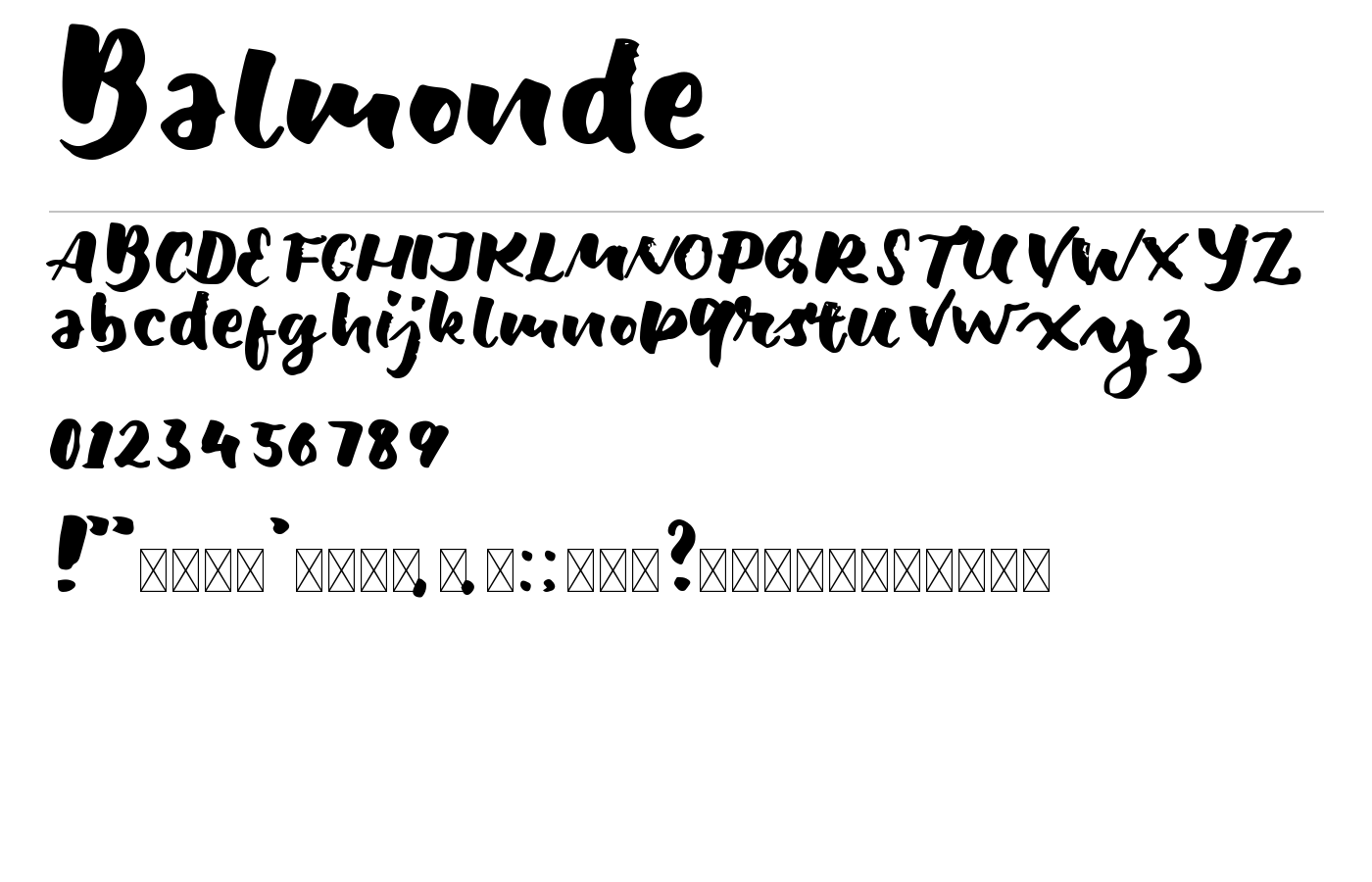
Balmonde is a bold, brush-style script font with a casual, hand-painted feel, featuring thick, dynamic strokes and lively letterforms that create a strong, artistic presence. Its irregular shapes and high contrast between thick and thin elements give it an energetic, expressive vibe, making it ideal for creative branding, headlines, packaging, and designs that seek a personal, handcrafted touch. This font works best where a warm, approachable yet bold statement is needed, balancing uniqueness with readability.
Balmonde Font
About Balmonde Font